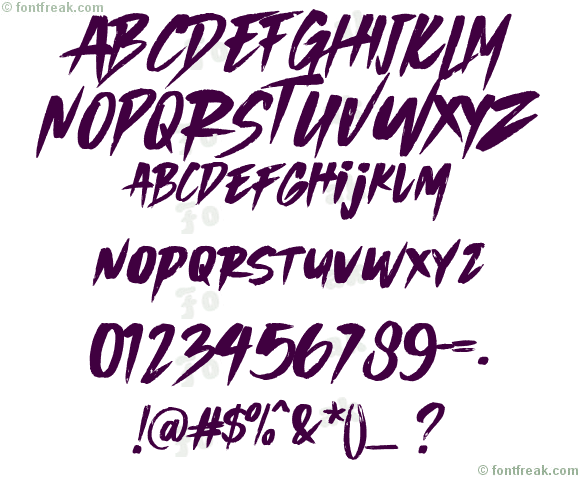
Wild Wolf
The Wild Wolf font by Burhan Afif is a striking handwritten typeface that embodies a sense of adventure and raw energy. This display font features bold, dynamic strokes that create a sense of movement and spontaneity, making it an excellent choice for projects needing a touch of rugged elegance. The uneven stroke weight and organic forms provide an authentic, hand-drawn feel, while the slightly slanted characters suggest a playful yet confident attitude. The generous spacing between letters enhances readability, ensuring that your message is delivered clearly while maintaining an artistic flair.
The Wild Wolf font is versatile and can be effectively used in a variety of design contexts. It shines in creating eye-catching movie posters that aim to evoke excitement and intrigue. Additionally, this font is perfect for wedding invitations that seek to combine elegance with a touch of wildness, appealing to couples looking for something unique. It also works well for branding small businesses, particularly those in outdoor or adventure-related industries, such as camping gear shops or nature retreats. Furthermore, restaurant menus featuring rustic or artisanal cuisine can benefit from the font's distinctive character, drawing attention to the establishment's personality.
Targeted towards graphic designers, small business owners, and content creators, the Wild Wolf font offers an appealing option for those seeking to make a memorable impression. Its free availability as a freeware license makes it accessible for anyone looking to elevate their design projects without incurring costs. What sets the Wild Wolf font apart is its captivating balance of creativity and functionality, making it an ideal choice for those who wish to convey a bold, adventurous spirit in their work. Don't miss the chance to enhance your designs with the Wild Wolf font free download today.